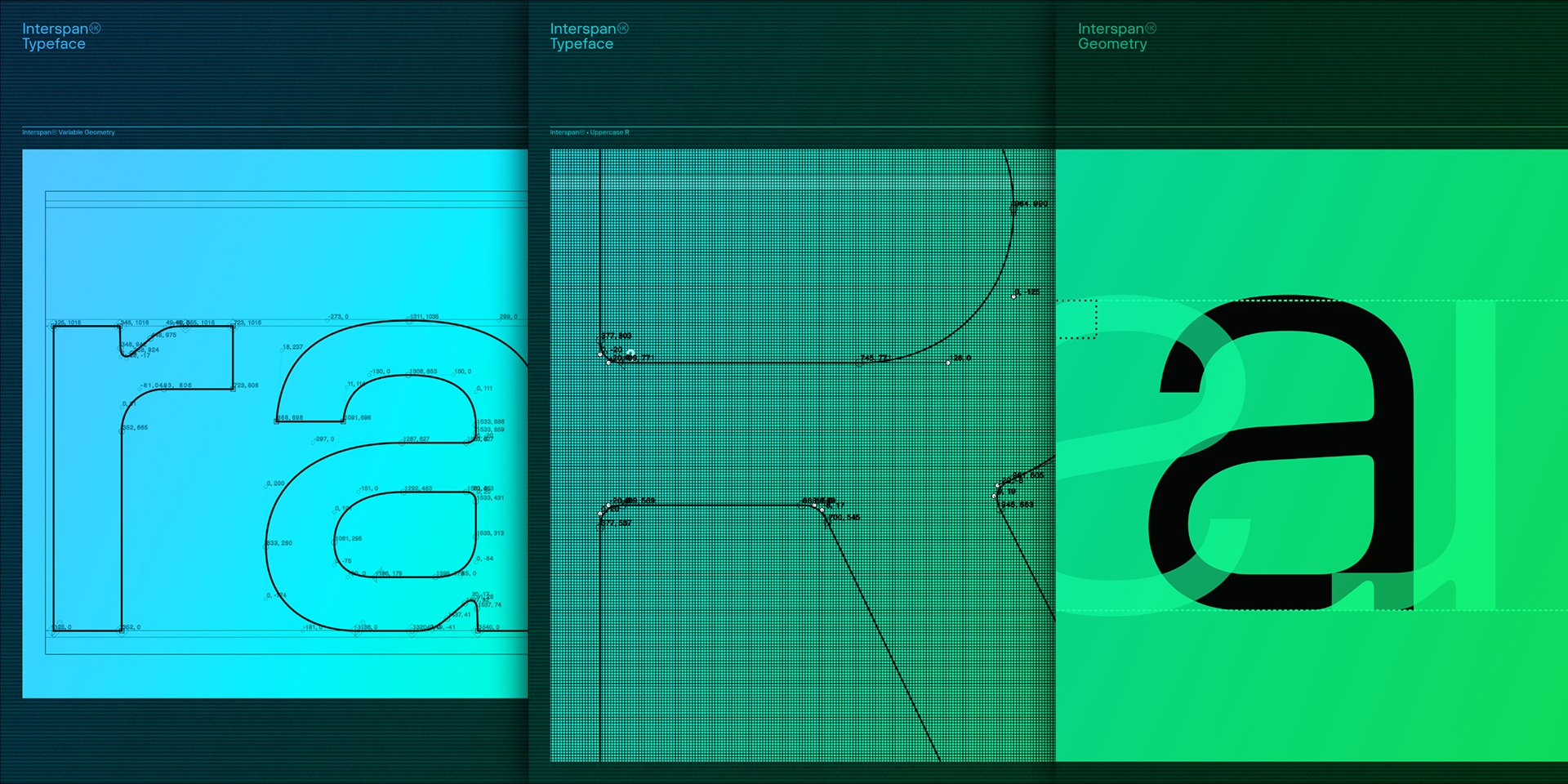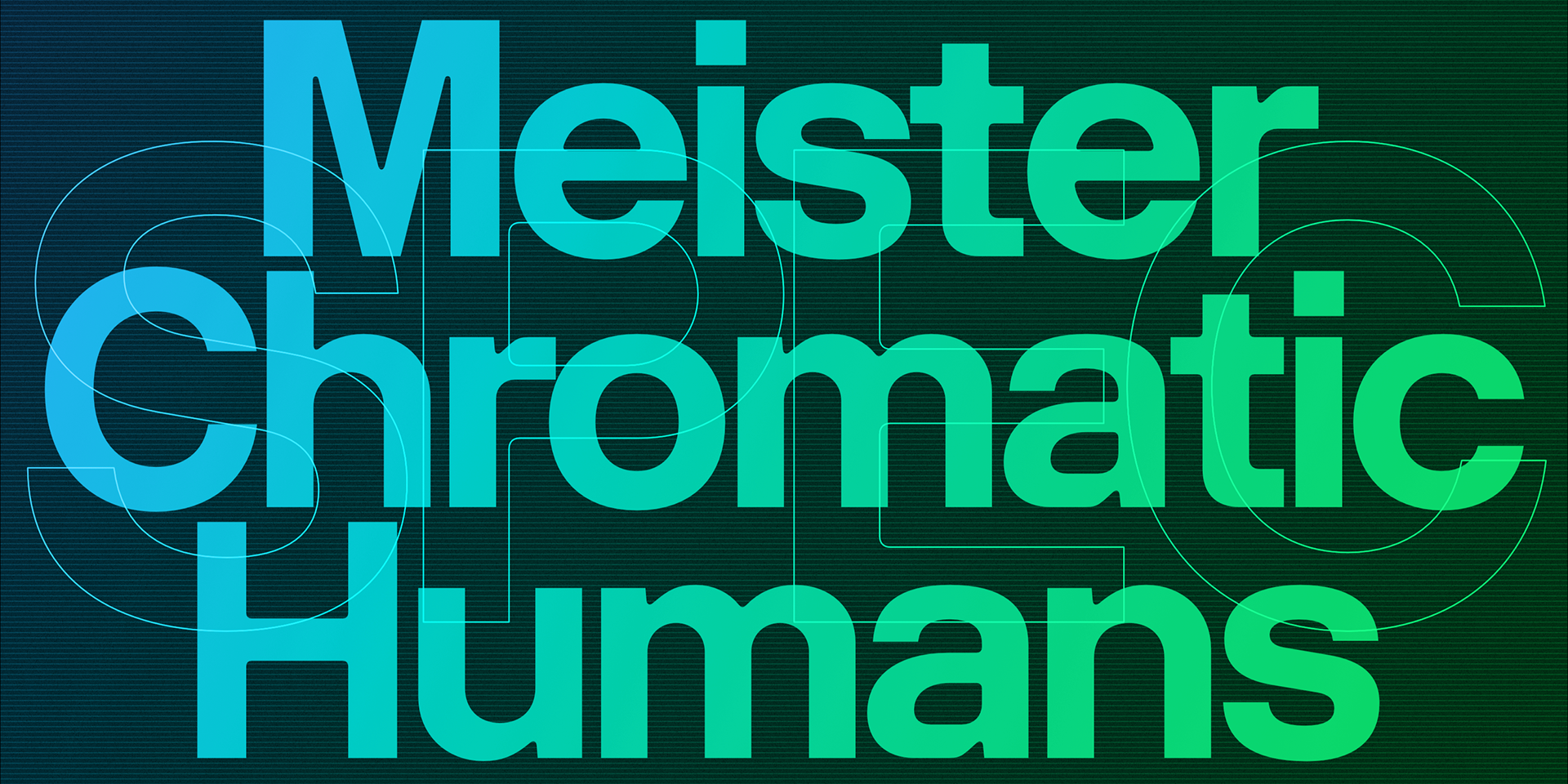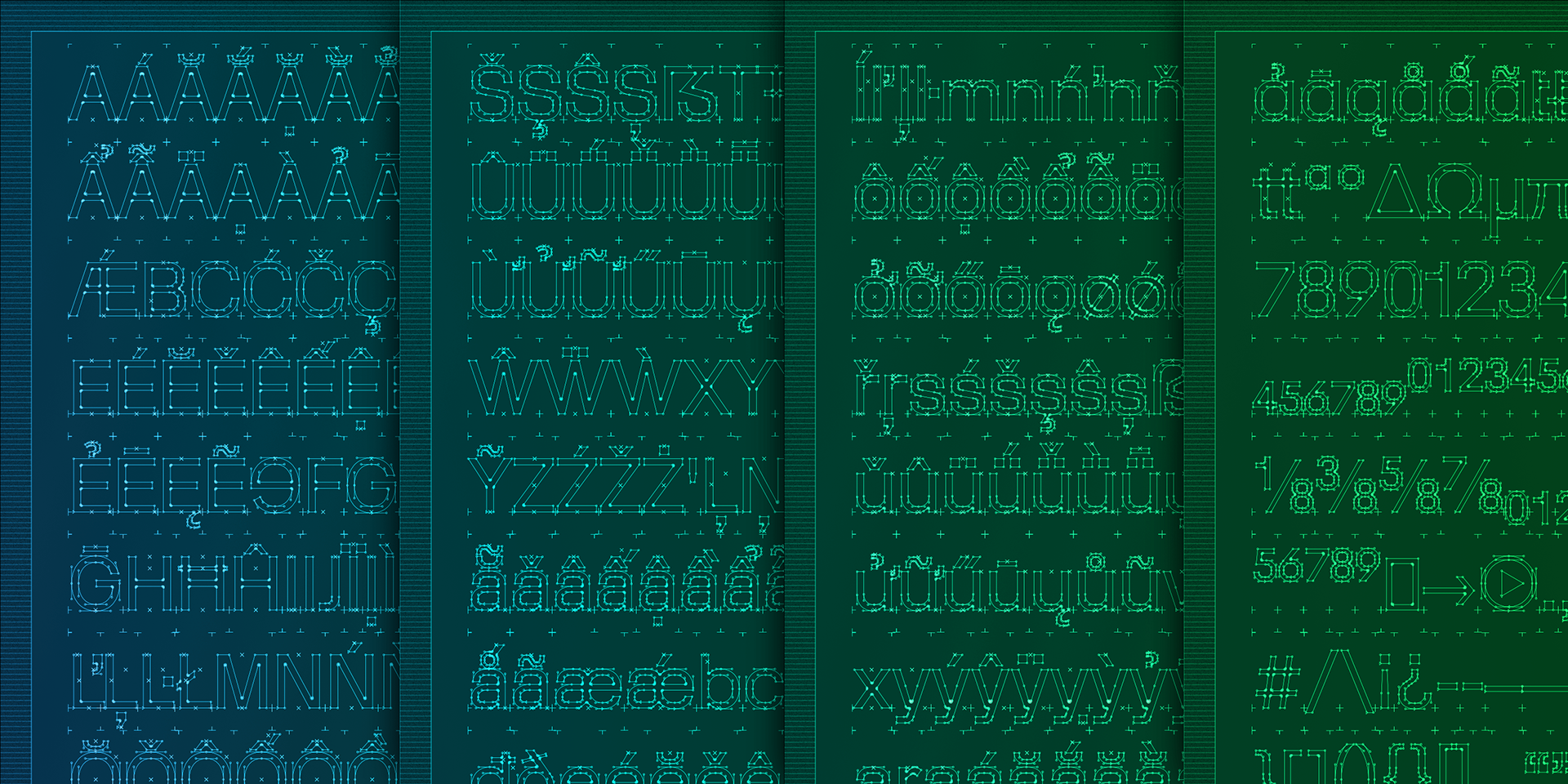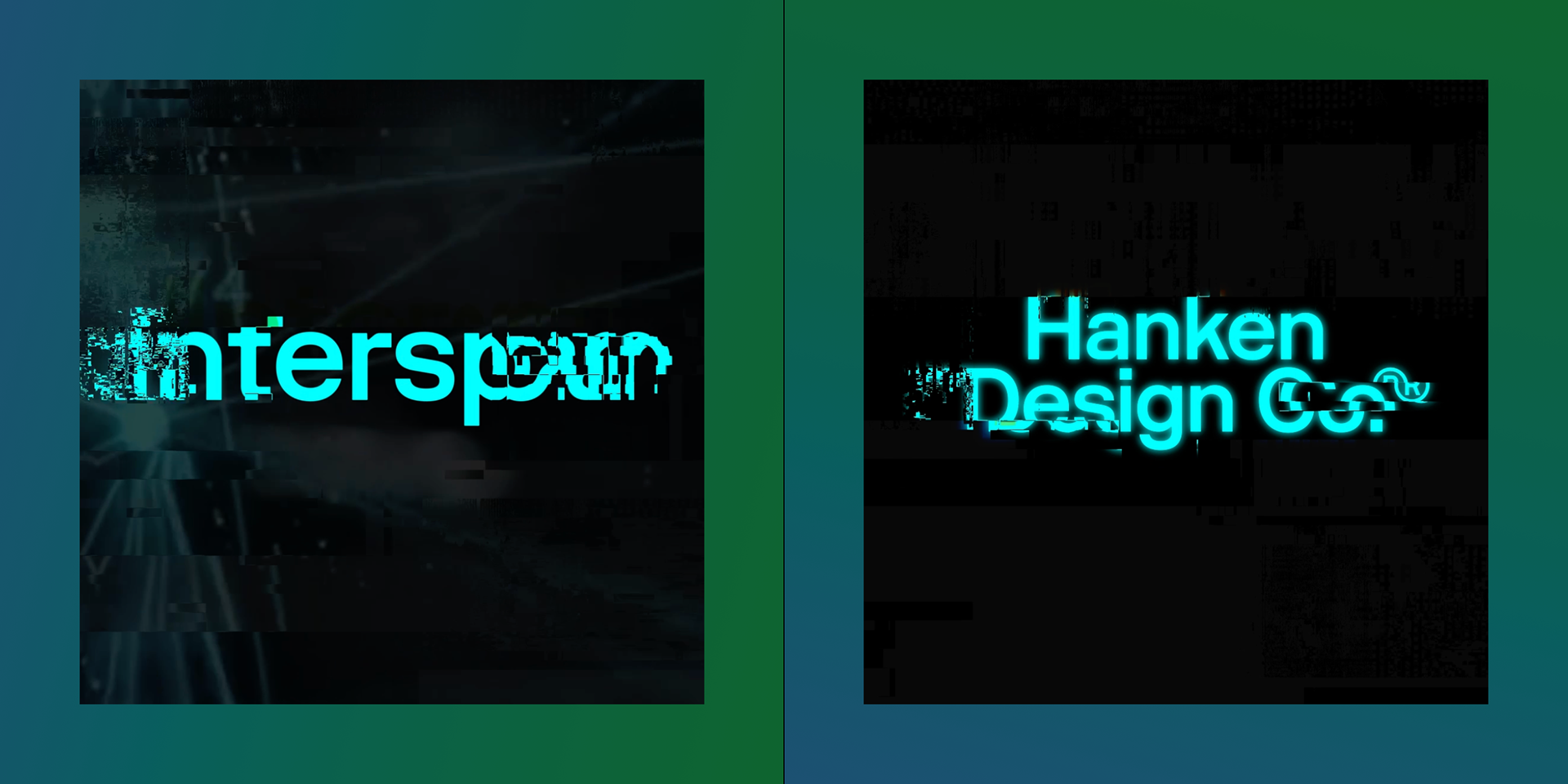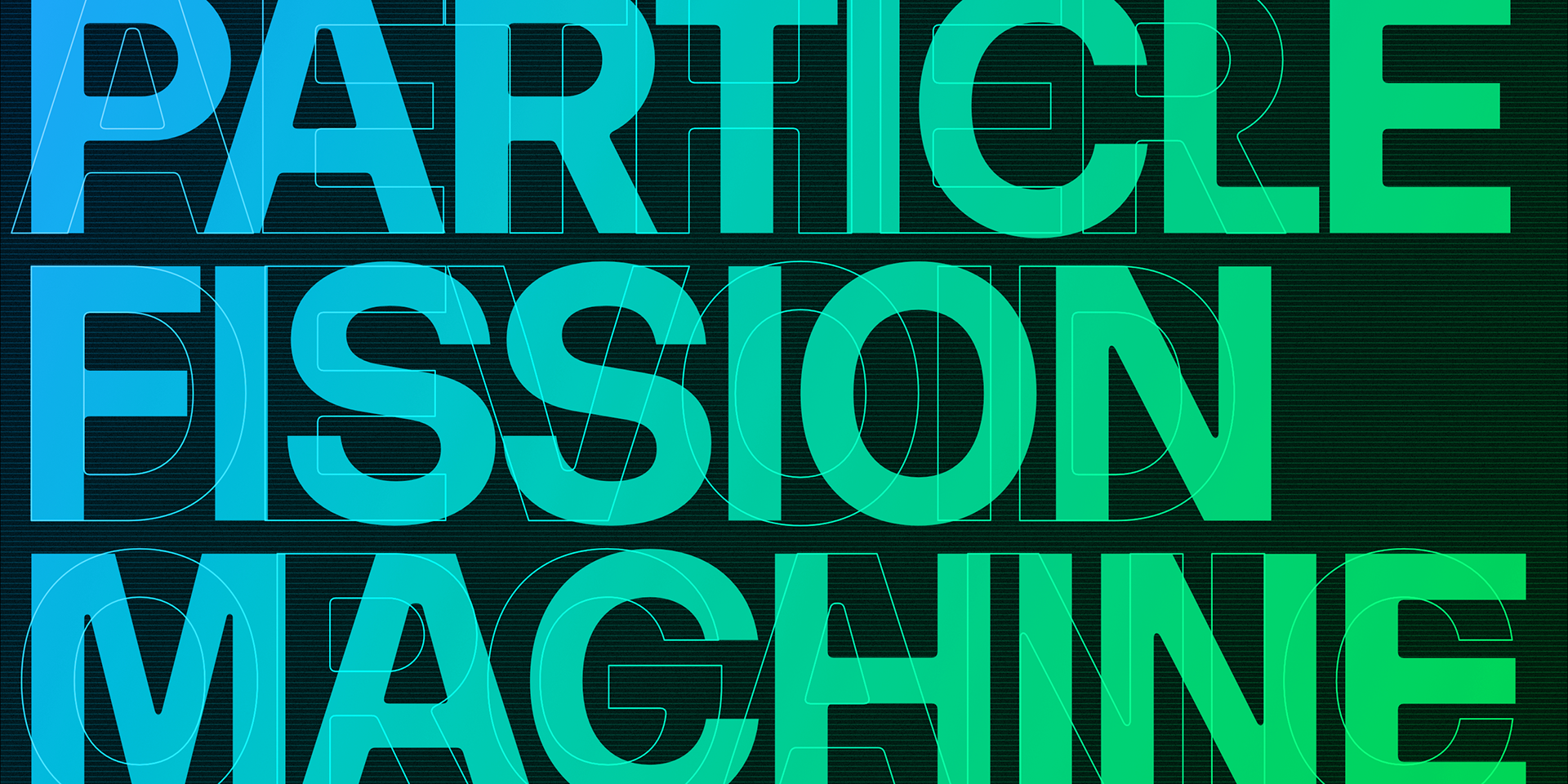
Interspan is a low-contrast, compact grotesk sans serif typeface characterized by its clean lines, modern aesthetics, and versatile functionality. Its compact letterforms enhance readability and make it ideal for use in tight spaces without compromising legibility. The typeface stands out with distinctive features, such as its uppercase W, which mirrors the shape of the uppercase V, creating a visually harmonious design element. Another unique characteristic is the lowercase R, which has a distinctive curve at its stem, adding a subtle dynamism to the overall text while maintaining consistency with the rest of the typeface.
Interspan spans a “broad range” of weights, from Thin to Heavy, offering flexibility for various design applications, including headings, subheadings, and body text. Despite its unique quirks, the typeface achieves a consistent rhythm and balance, making it suitable for both display and long-form text. Its clean yet distinctive design makes Interspan an excellent choice for contemporary branding, editorial layouts, and user interface typography, blending modernity with subtle character.